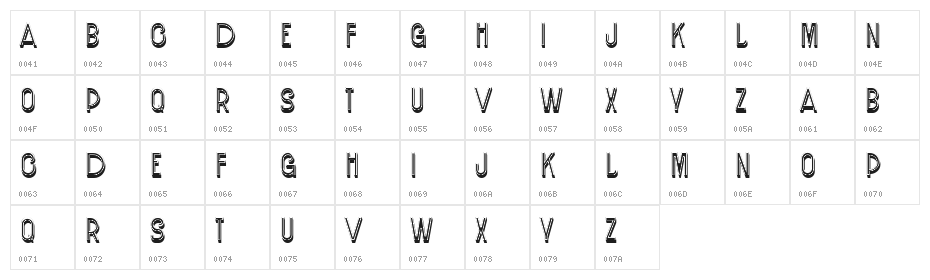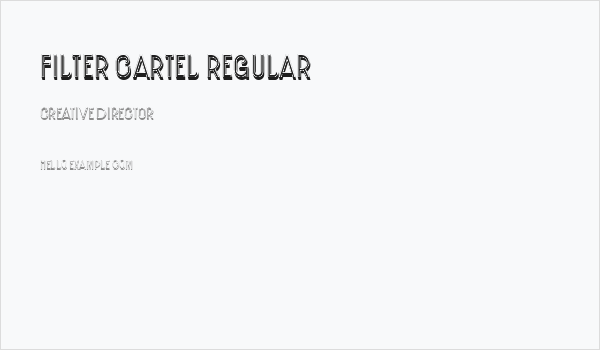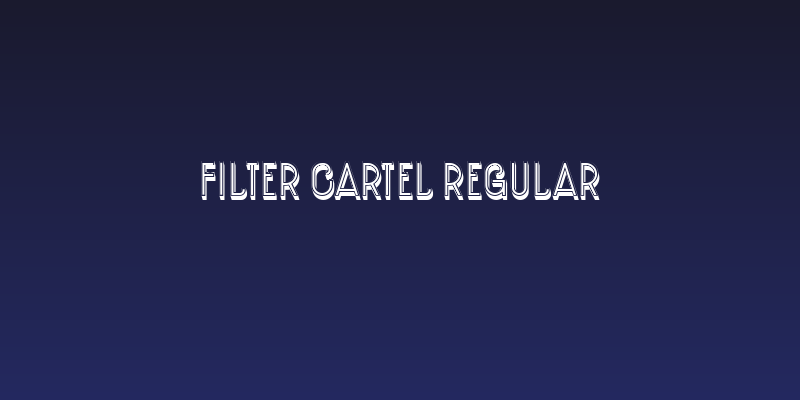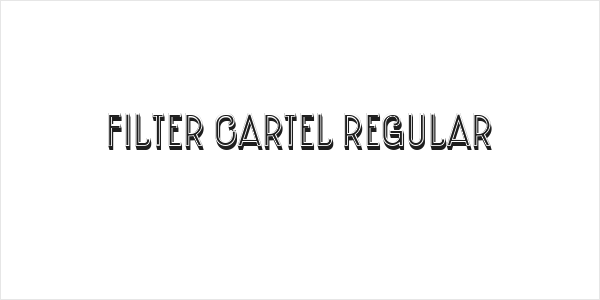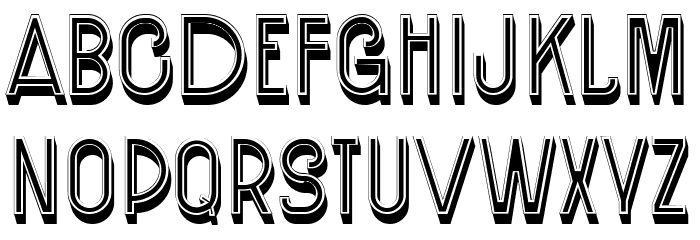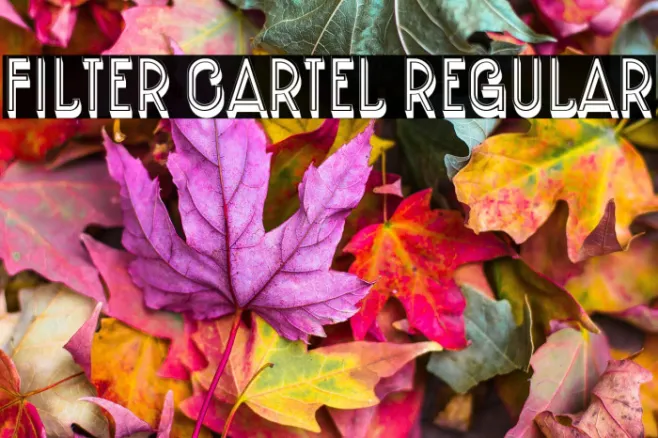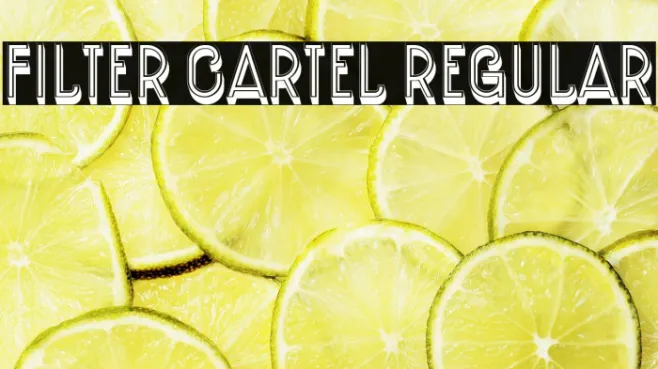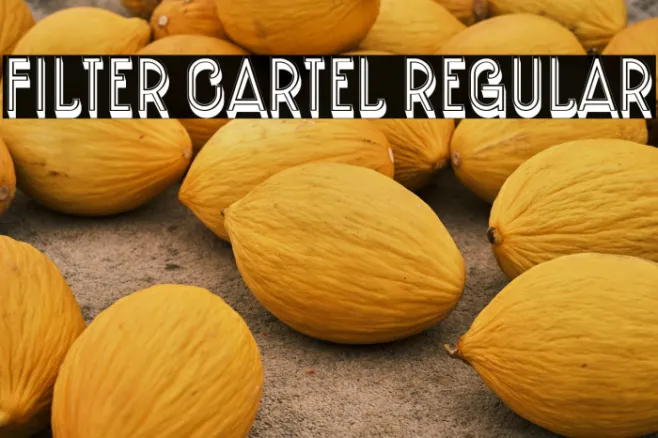
Filter Cartel Regular Font
Filter Cartel Regular Description
This font features a bold, decorative style with a three-dimensional effect created by a shadow or outline that gives depth to each character. The uppercase letters are designed with clean, straight lines and sharp angles, providing a modern and industrial feel. The font's unique style is emphasized by its layered appearance, making it stand out in any design. It is particularly suitable for headlines or titles where a strong visual impact is desired. The font's geometric structure and bold presence make it ideal for projects that require a striking and memorable typeface.